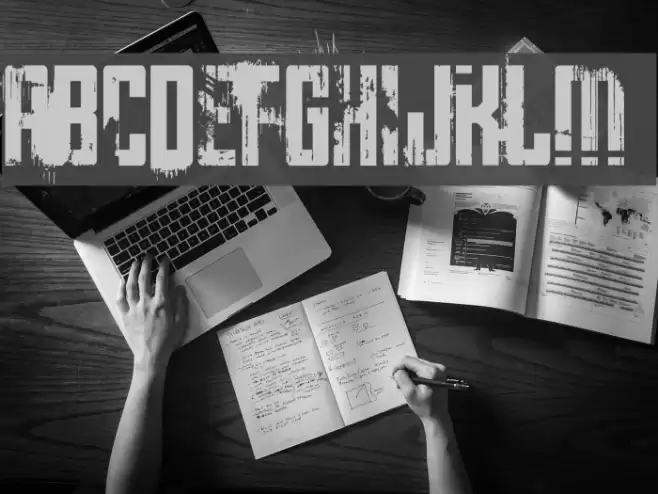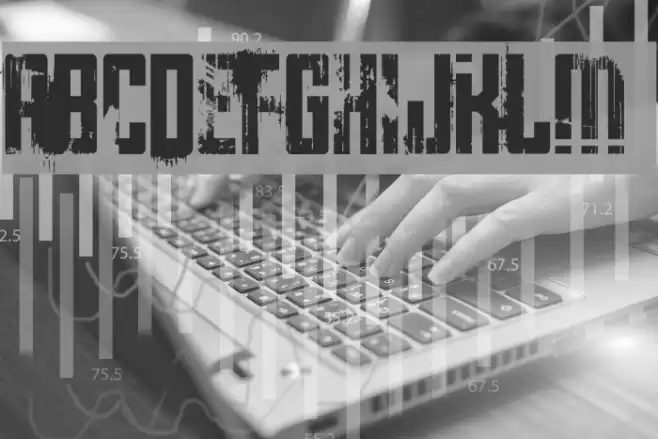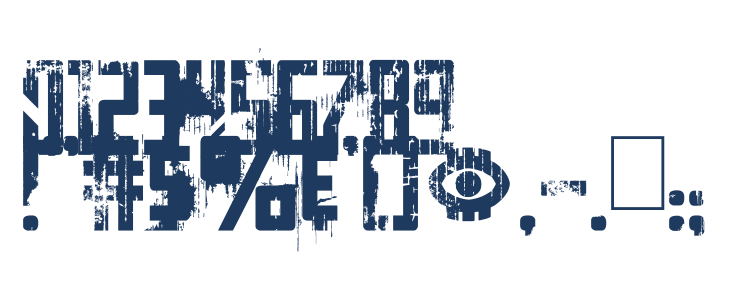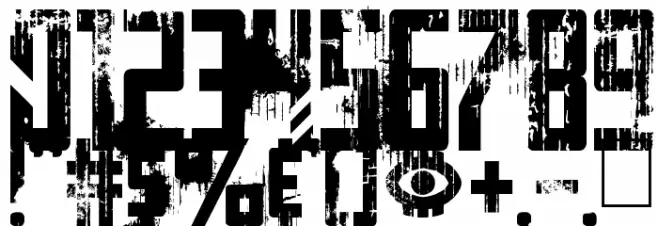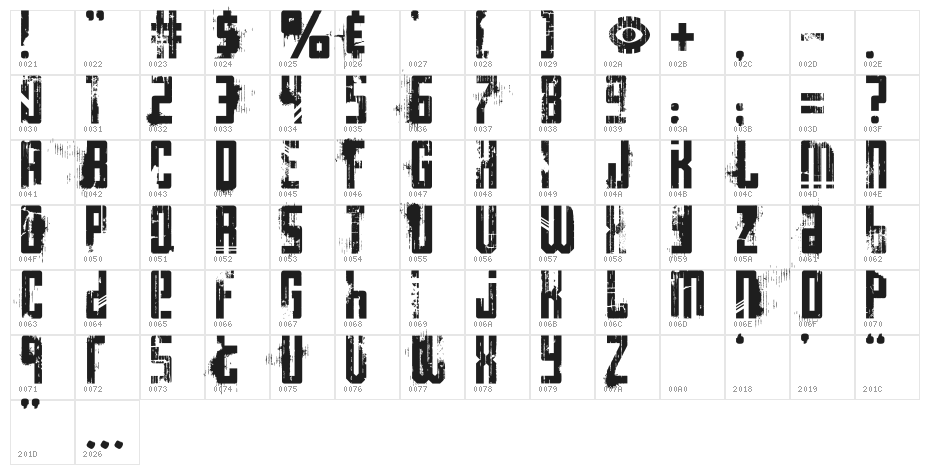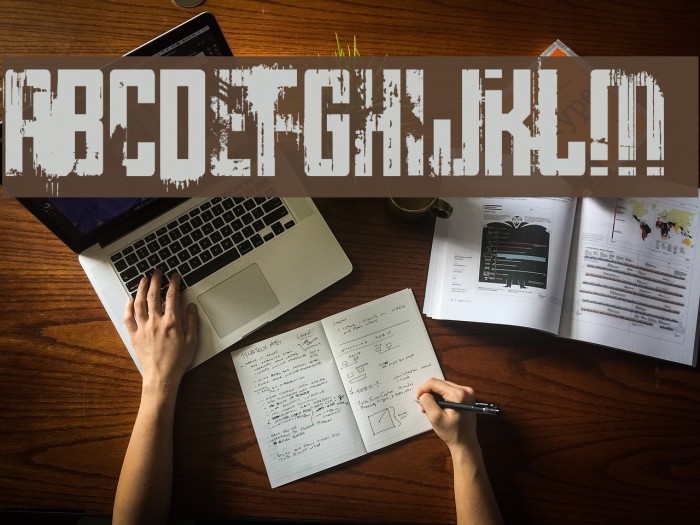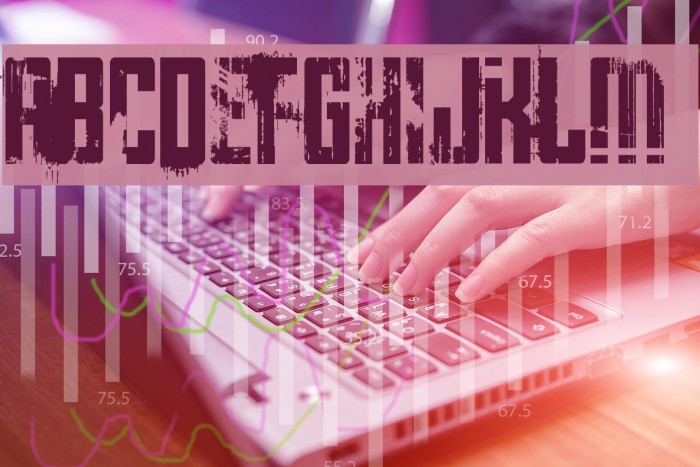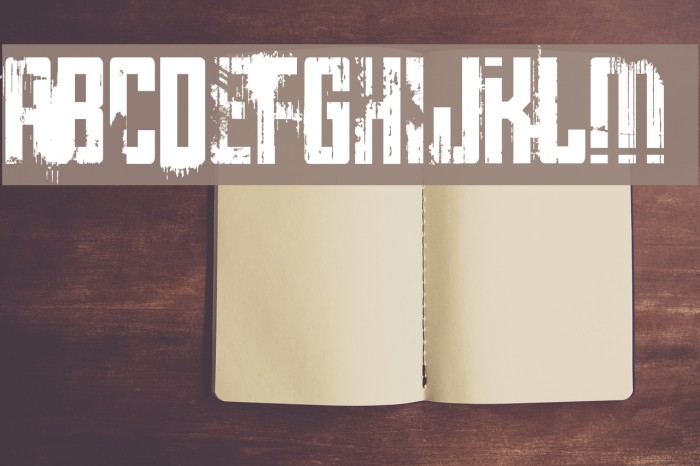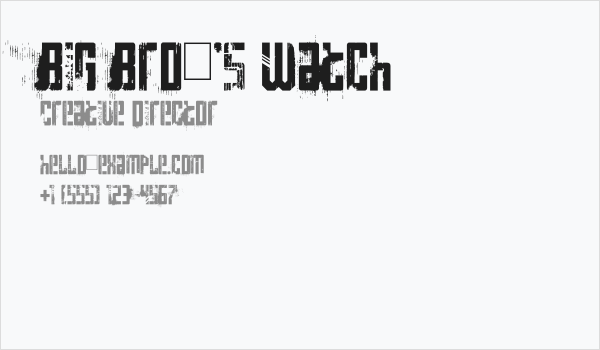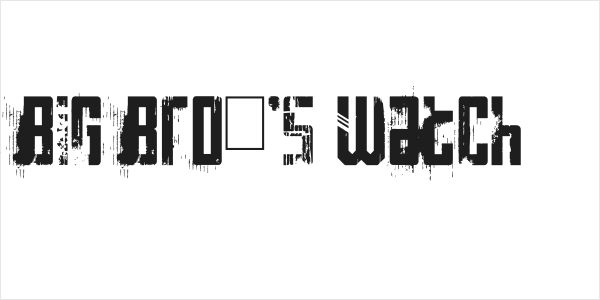
Big Bro's Watch Font
Big Bro's Watch Description
This font features a bold, distressed style with a grunge aesthetic. The characters are blocky and angular, with a rough texture that gives the appearance of being weathered or eroded. The uppercase and lowercase letters maintain a consistent height, creating a uniform look across the alphabet. Numbers and special characters follow the same distressed pattern, adding to the cohesive design. The font's unique style makes it stand out, with each character appearing as if it has been stamped or printed with a worn-out stencil. This design choice adds a sense of ruggedness and edginess, making it ideal for projects that require a bold statement.
A bold, distressed font with a grunge aesthetic and blocky, angular characters from Uncategorized fonts.
- Proposed Projects: Ideal for music album covers, urban-themed posters, graffiti art, and edgy branding projects.
- Overall Style: Grunge, Edgy, Urban
- Use Case: Headlines, Posters, Branding